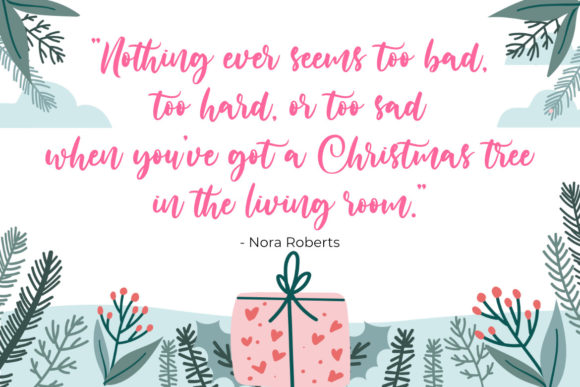
Starlight of Christmas Font
About Starlight of Christmas Font
Starlight of Christmas is a lovely script font featuring charming, playful characters that seem to dance along the baseline. This font is PUA encoded which means you can access all of the glyphs and swashes with ease!